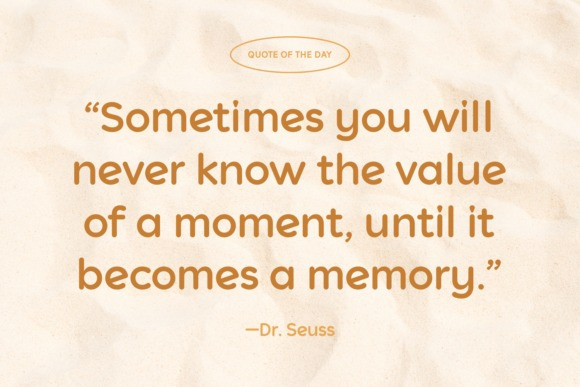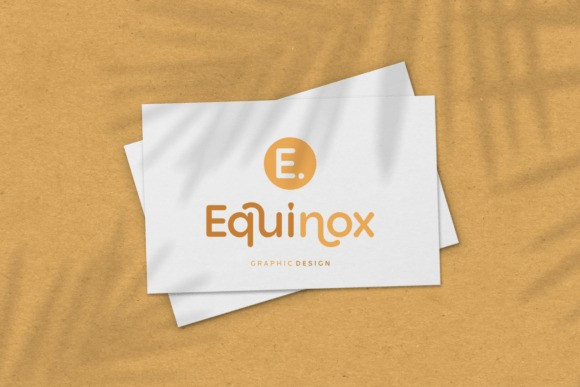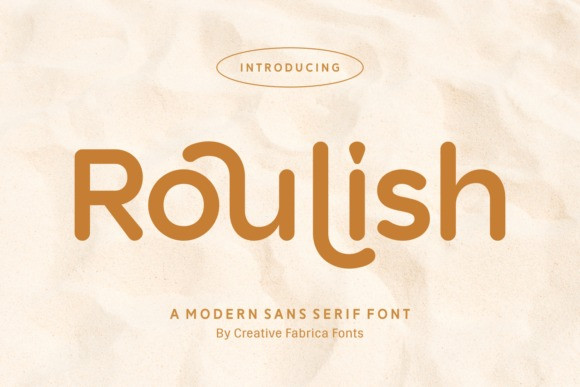
Roulish Font
Roulish Font is a modern sans serif font with smooth curves and playful character. Its rounded design brings a friendly, approachable feel while keeping a clean, professional look. Perfect for branding, packaging, posters, and digital projects, this font blends modern simplicity with a unique, creative twist to make your designs stand out.